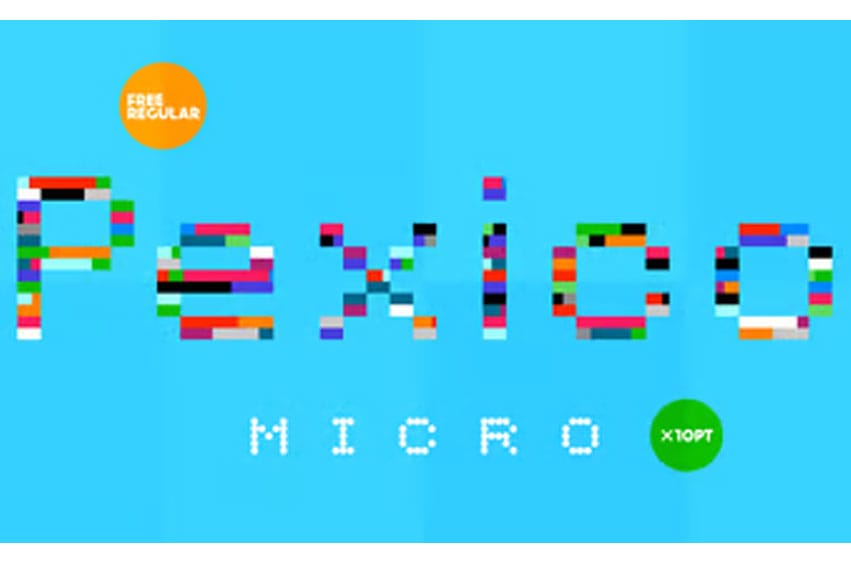
Pexico Micro Font is a pixel typeface that uses 5 by 7 grid (capital letter) in 8 styles: 4 basic styles for text setting — Regular, Bold, Narrow, and Mono and 4 stylistic variations of the Regular style for display setting — Outline, Dots, Round, and Inverse.
It fits the display’s pixel grid when used at 10pt size or its multiples. Pexico Micro supports Latin, Cyrillic, and Greek Monotonic scripts, all with thoroughly designed diacritics. Moreover, Pexico Micro makes use of advanced OpenType features, just as any other modern text typeface. Each style also has 9 sets of numbers, small capitals and is properly kerned.